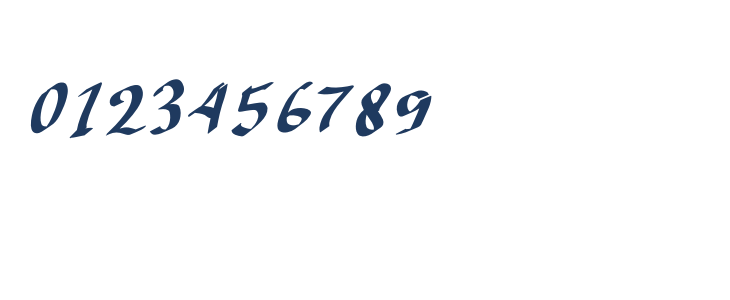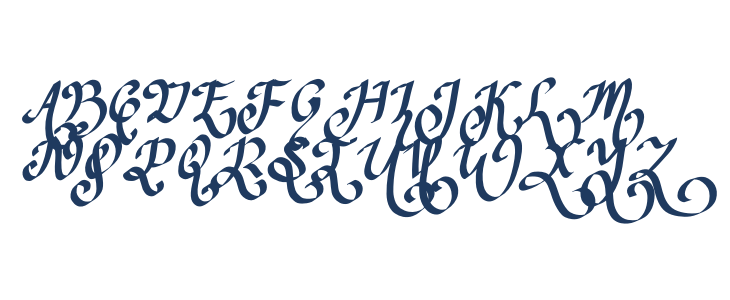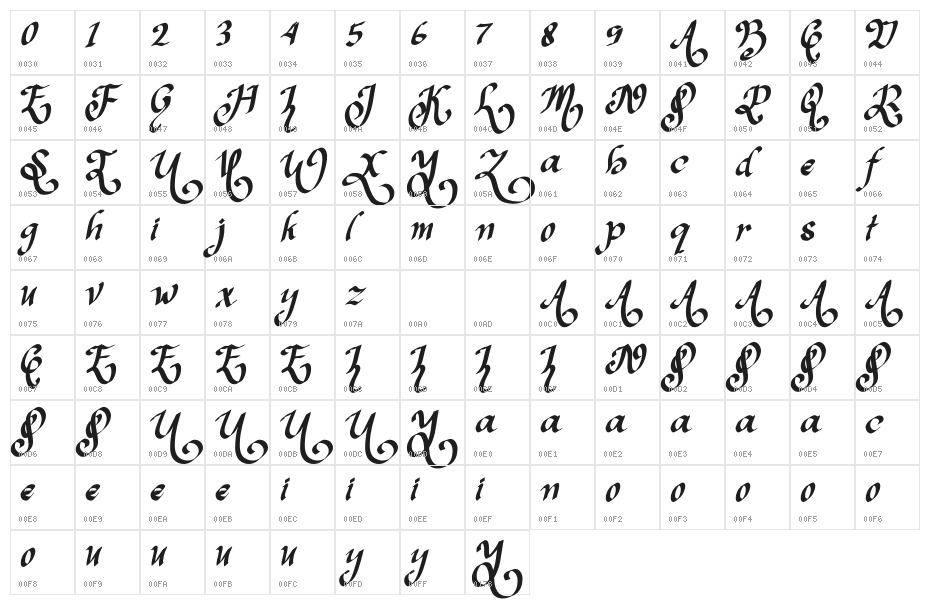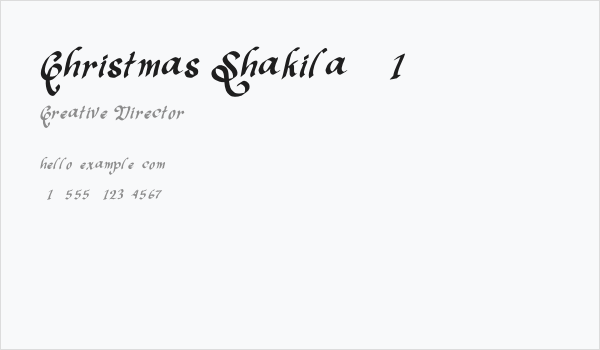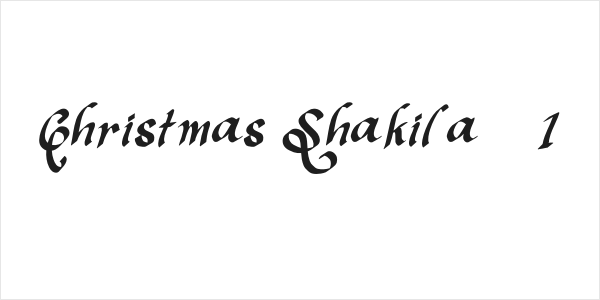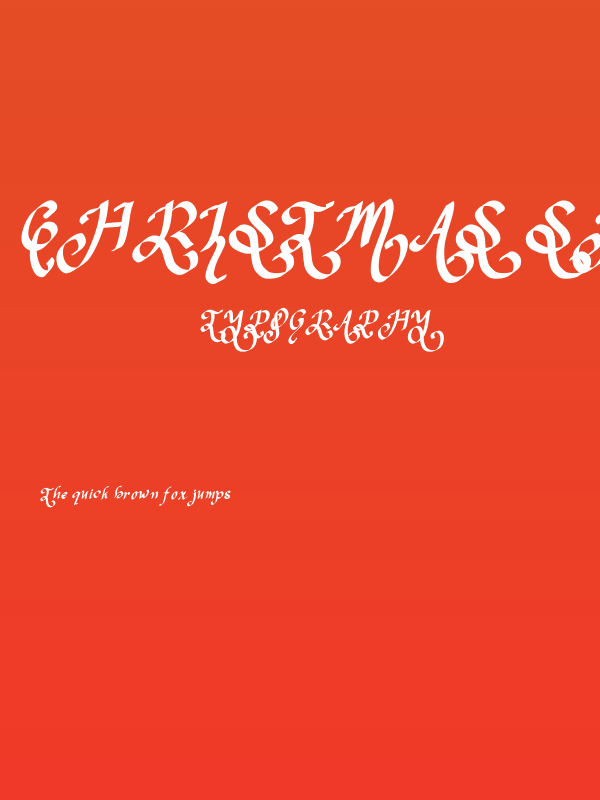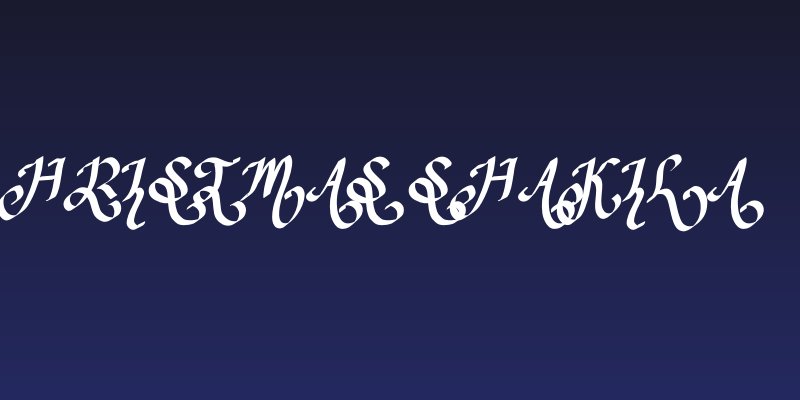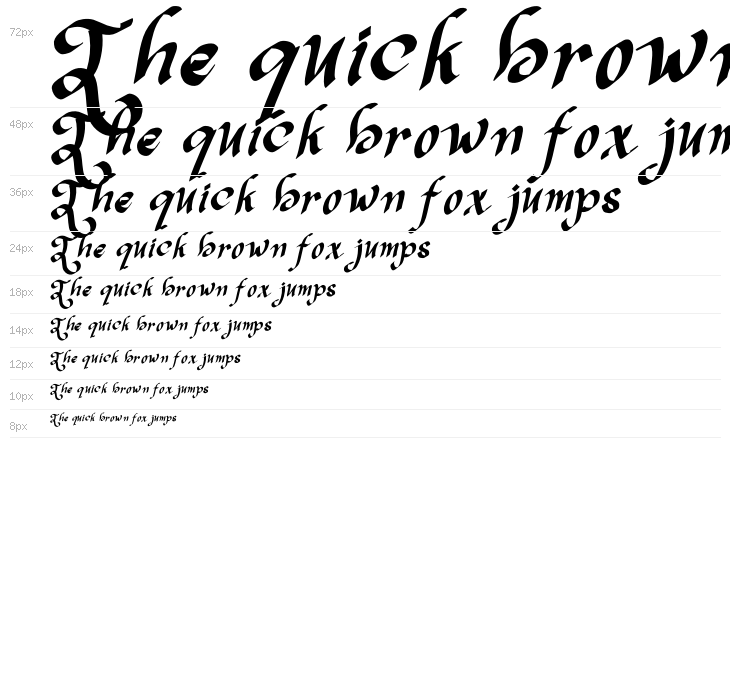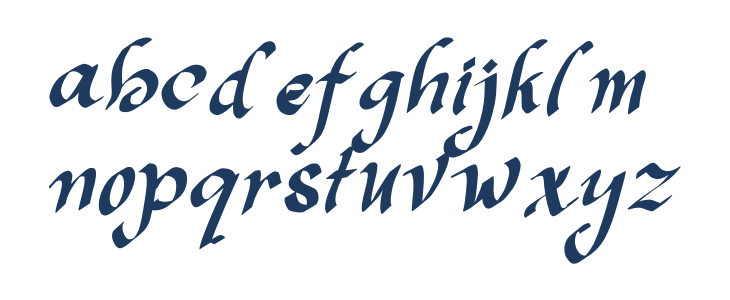
Christmas Shakila - 1 Font
A decorative script font with dramatic flourishes and high contrast between thick and thin strokes, featuring ornate uppercase letters and flowing lowercase forms. The style is reminiscent of calligraphy with a festive, elegant flair.
| Overall Style | Decorative, Festive, Elegant |
| Proposed Projects | Holiday cards, invitations, event posters, branding for festive or luxury products. |